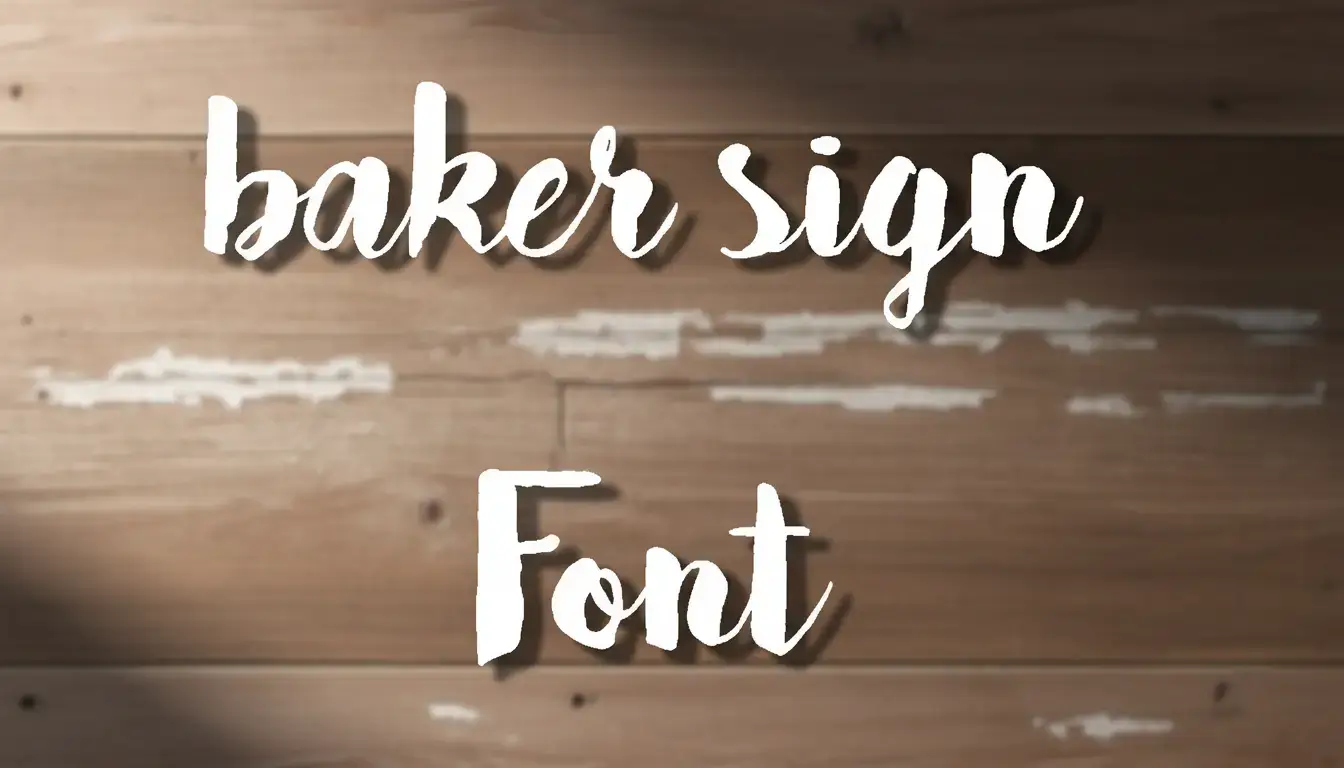
Baker Sign Font
Baker Sign
Baker Sign is a script font designed by Clement Nicolle. The letters have the smooth movement of real pen lettering, which is why even a single name looks special in it. You can download it for free and test it with your own words in the preview above.
- Designer: Clement Nicolle
- Glyphs: 180
- Languages: English, Spanish, French, German and Italian
What You Can Type With Baker Sign
With complete upper and lowercase letters and all ten digits, Baker Sign is ready for real wording, not just a single headline. Everyday marks like &, !, ? and @ are there too. Thanks to its accented letters, it also works for Spanish, French, German and Italian, not just English.
Where Baker Sign Works Best
Baker Sign is a natural fit for wedding invitations, logos and signature-style headings. Script fonts read best in short bursts, so keep it to names, titles and one-line quotes. Skip all caps: script capitals are drawn to start a word, not to fill one.
Does Baker Sign support accented letters?
Yes. Baker Sign includes the accented letters needed for Spanish, French, German and Italian, so it works for more than just English.